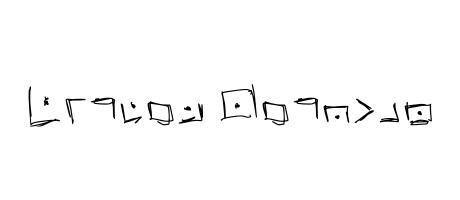
Pigpen
Pigpen Regular, a cipher font, uses geometric shapes—squares, circles, and dots—to represent letters. Its cryptic nature evokes secret messages and coded communication. The shapes are simple yet subtly varied, creating a unique and slightly irregular visual texture. It's visually engaging and immediately suggestive of mystery and intrigue.